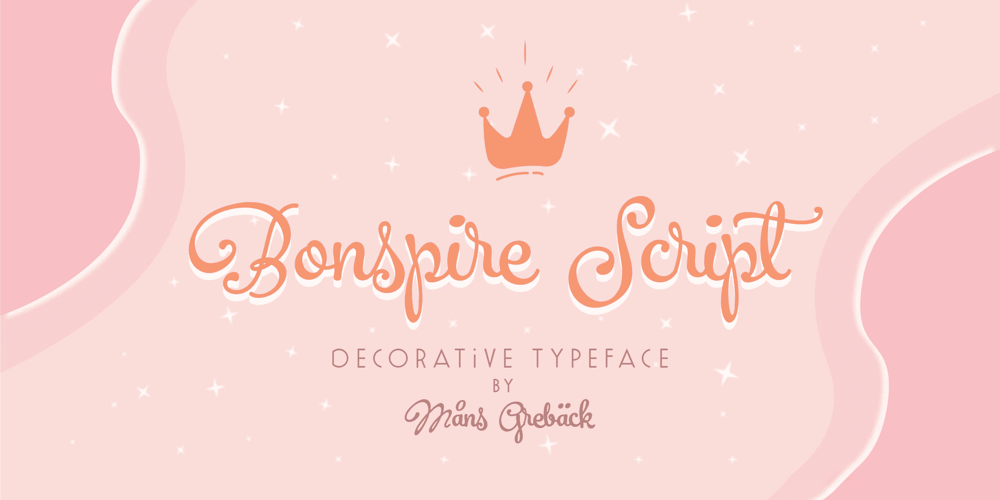
Bonspire Script Font Family was designed by Måns Grebäck and published by Mans Greback. Bonspire Script contains 12 styles and family package options. Bonspire Script is a dynamic and creative script typeface. Brimming with lively swashes and optimistic flair, Bonspire Script embodies the essence of movement and creativity. Its swirly strokes lend it an air of playful sophistication, making it equally suitable for heartfelt love letters or eye-catching advertisements. Its handwriting-inspired design gives it an approachable and personal feel. The typeface dances across the page, infusing any text with a sense of joy and possibility. Use underscore _ anywhere in a word for swashes. Example: Love_rose Use multiple underscore for different swashes. Example: Wonder________woman Use Bonspire Script’s built-in swashes and stylistic alternates to fully express your creativity. Its OpenType functionality ensures top-notch quality and customizability. The typeface offers extensive lingual support, covering all Latin-based languages, and includes all the characters and symbols you’ll ever need.The creative force behind Bonspire Script is Mans Greback. Renowned for his ability to evoke emotion through typography, Greback has outdone himself with this lighthearted yet intricate design. His extensive portfolio showcases a knack for blending practicality with artistic flair, making each font a unique masterpiece.